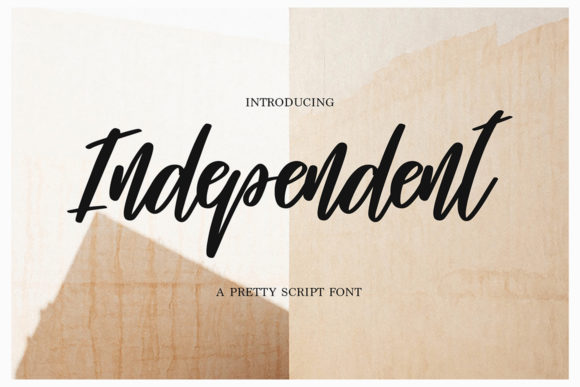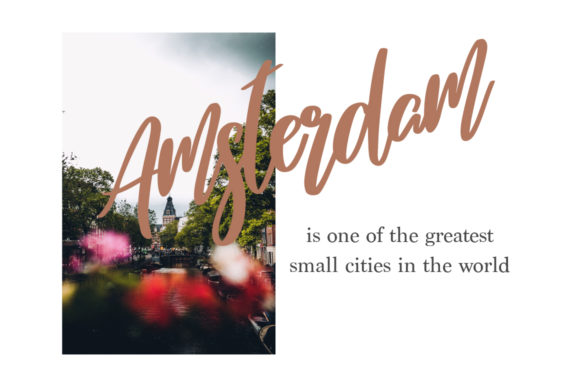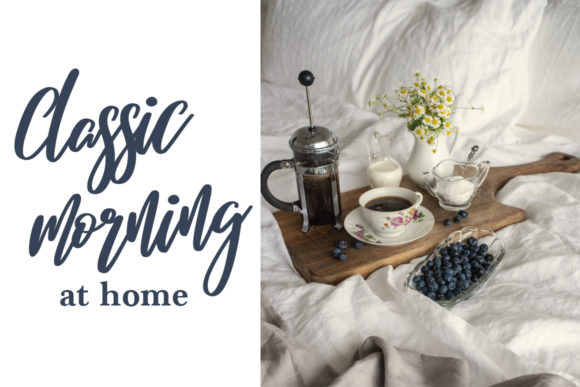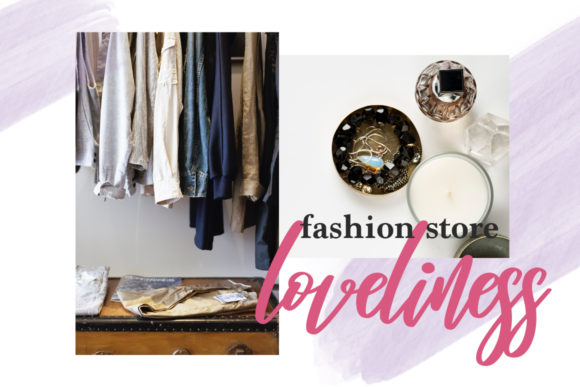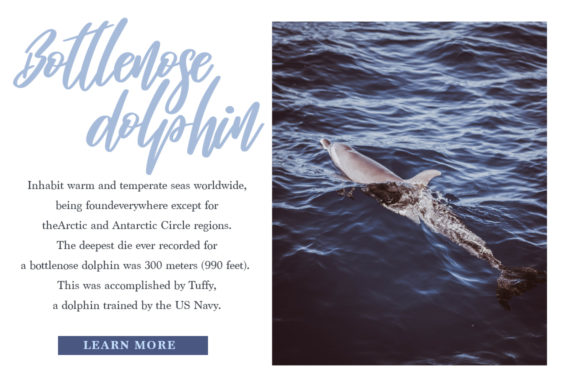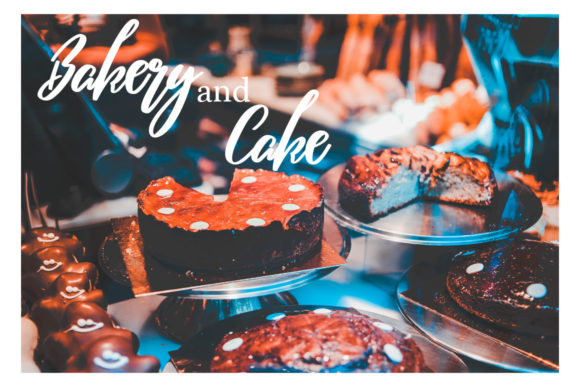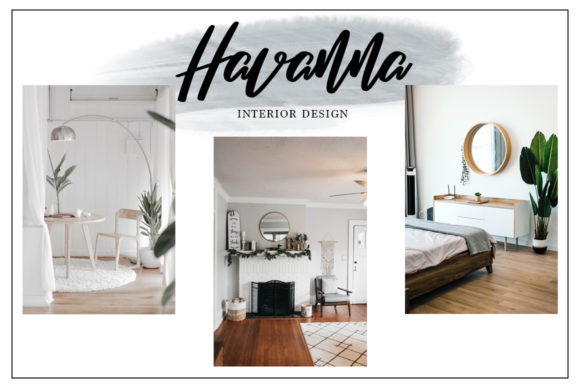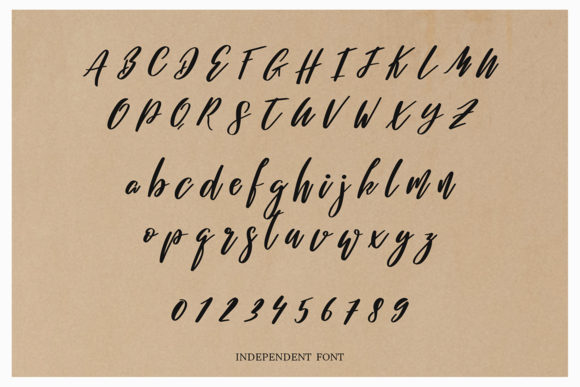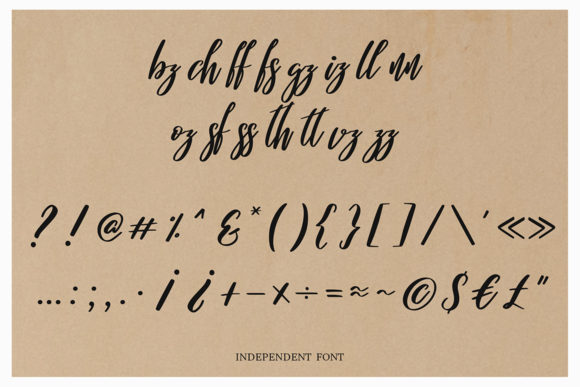
HomeScript FontsIndependent Font Script Fonts Independent Font FacebookXPinterestWhatsApp Independent Font Poster 2 Independent Font Poster 3 Independent Font Poster 4 Independent Font Poster 5 Independent Font Poster 6 Independent Font Poster 7 Independent Font Poster 8 Independent Font Poster 9 About Independent Font Independent is a cool and bold script with a unique style. Get inspired by its bold feel DOWNLOAD NOW People also explored Maria Rose Font Hannah Font Yearly Font Sweet Baby Font Holiday Garland Font Valentine Font Winter of Desember Font Tropical Freezer Font Sweet Honey Font 357 0 TagsIndependent Font Previous articleNothingham Script FontNext articleFidato Font LEAVE A REPLY Cancel reply Comment: Please enter your comment! Name:* Please enter your name here Email:* You have entered an incorrect email address! Please enter your email address here Website: Save my name, email, and website in this browser for the next time I comment. Personal Use Free Entin Personal Use Free Read more about this font Retro Poster Personal Use Free Read more about this font Carnivals Personal Use Free Read more about this font Time for Presents Personal Use Free Read more about this font BLOG Where to Buy American Fonts Online in 2024 Where to Buy American Fonts Online: The Ultimate Guide for 2024 Looking for the perfect American font to elevate your design projects? You're in the... Best Fonts for YouTube Videos: Make Your Thumbnails Stand Out Using Fonts in Digital Marketing: Tips to Strengthen Your Brand Identity Free Fonts Risk: Why Free Fonts Can Be Dangerous for Designers